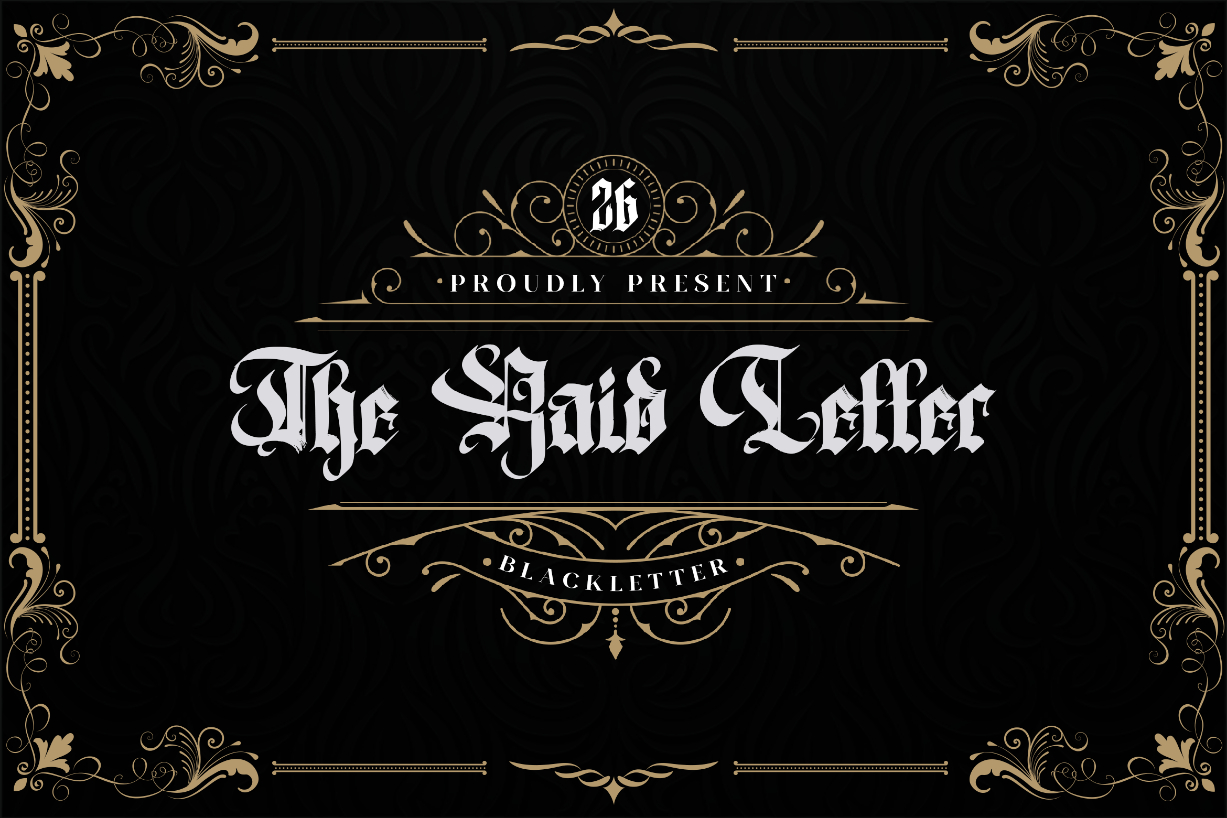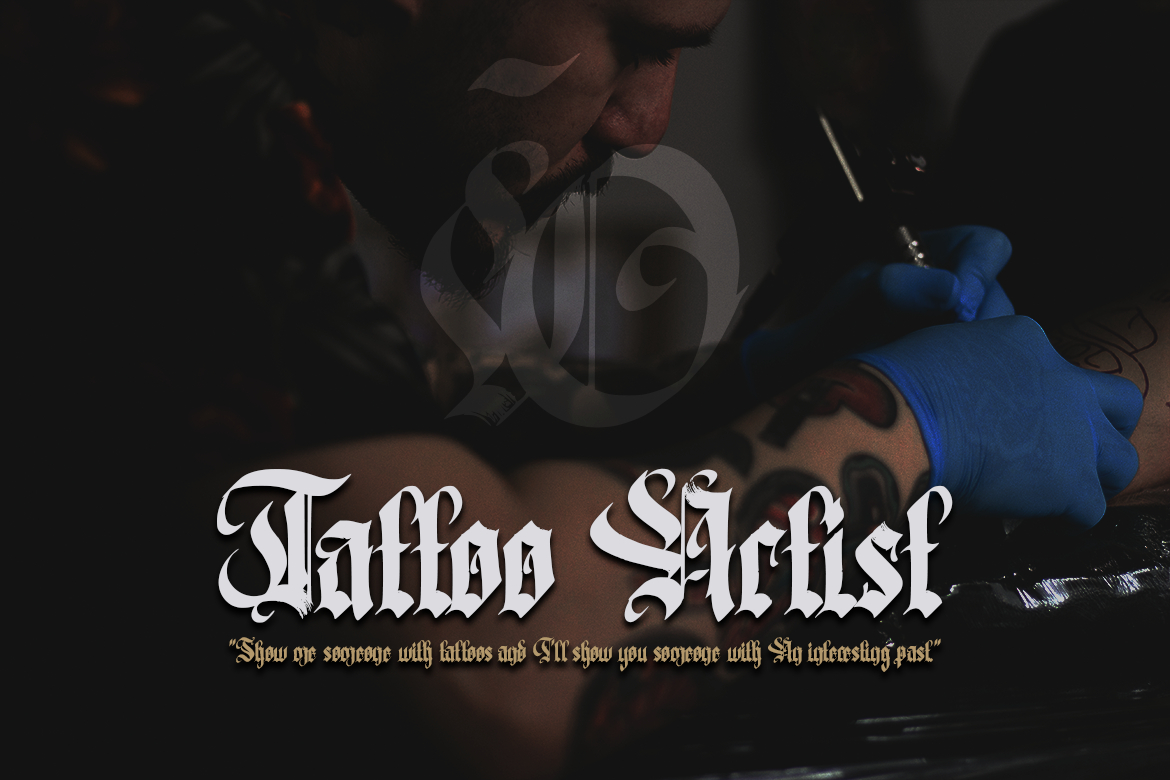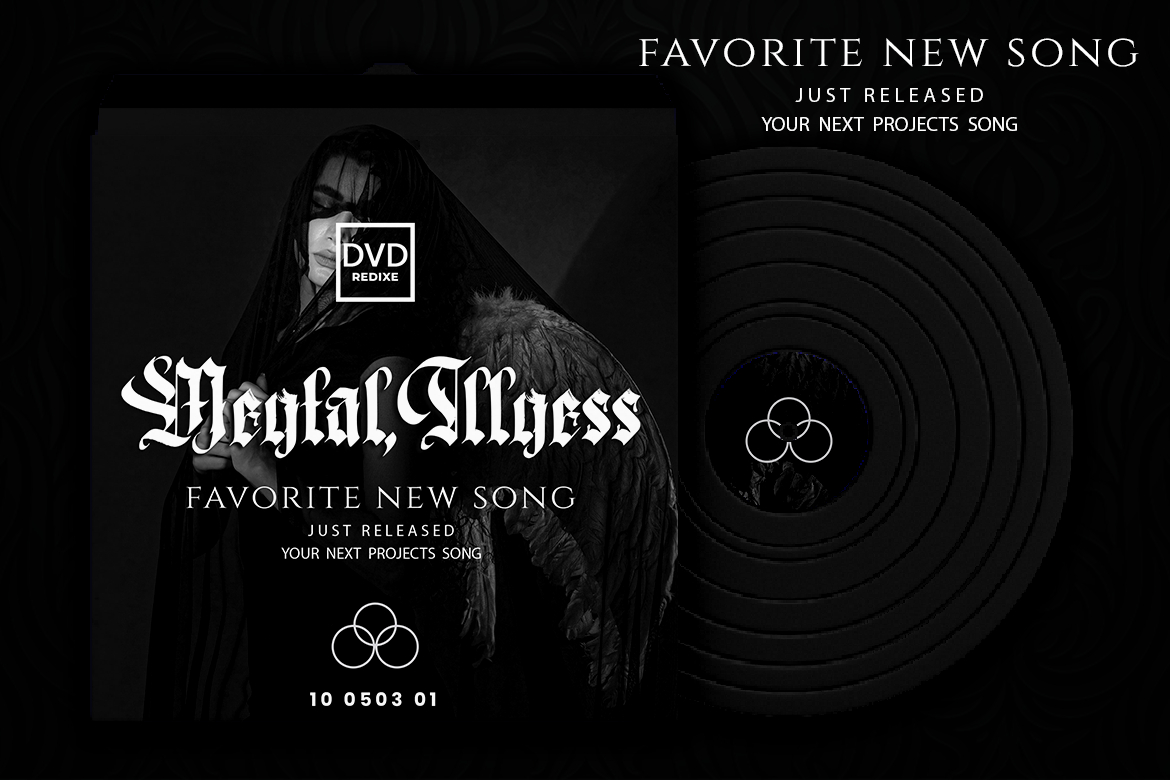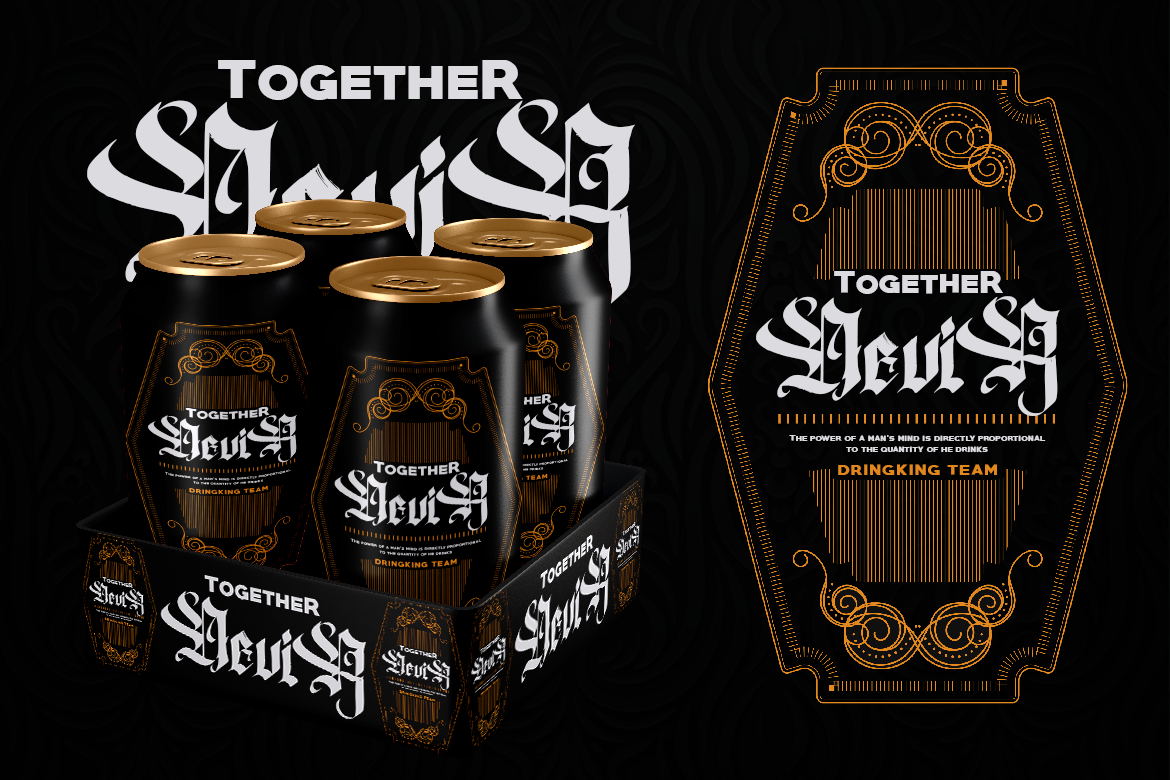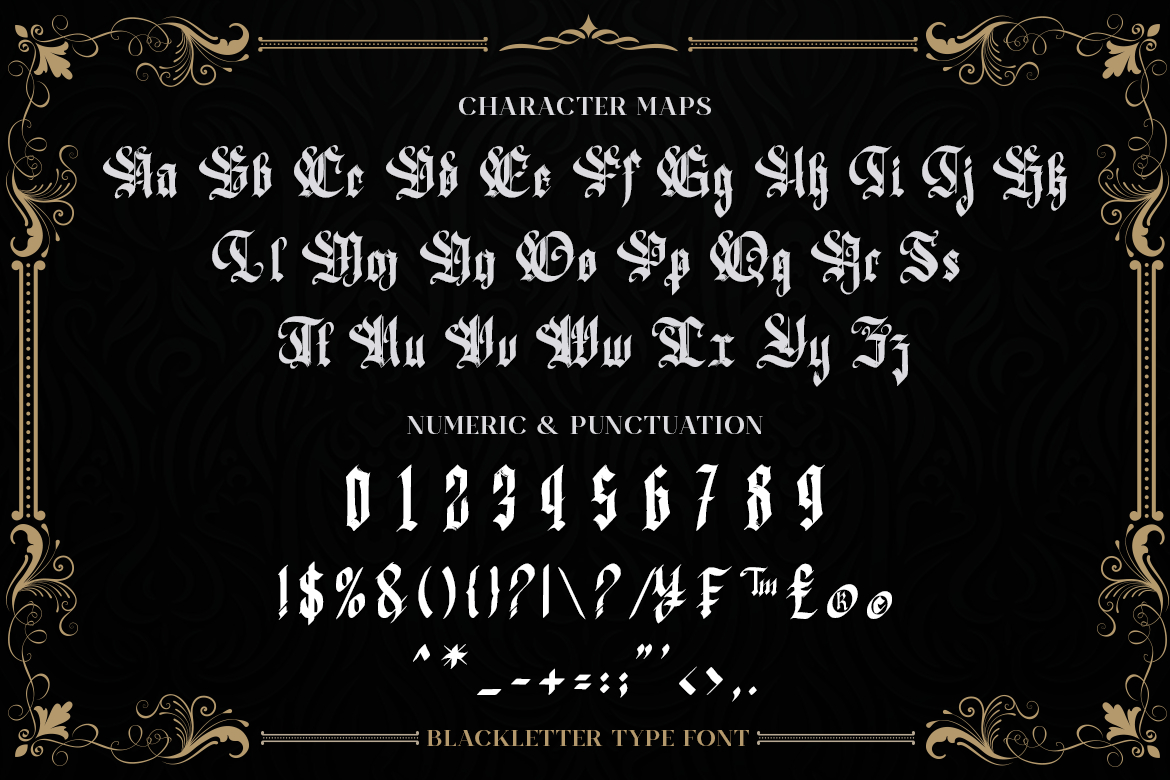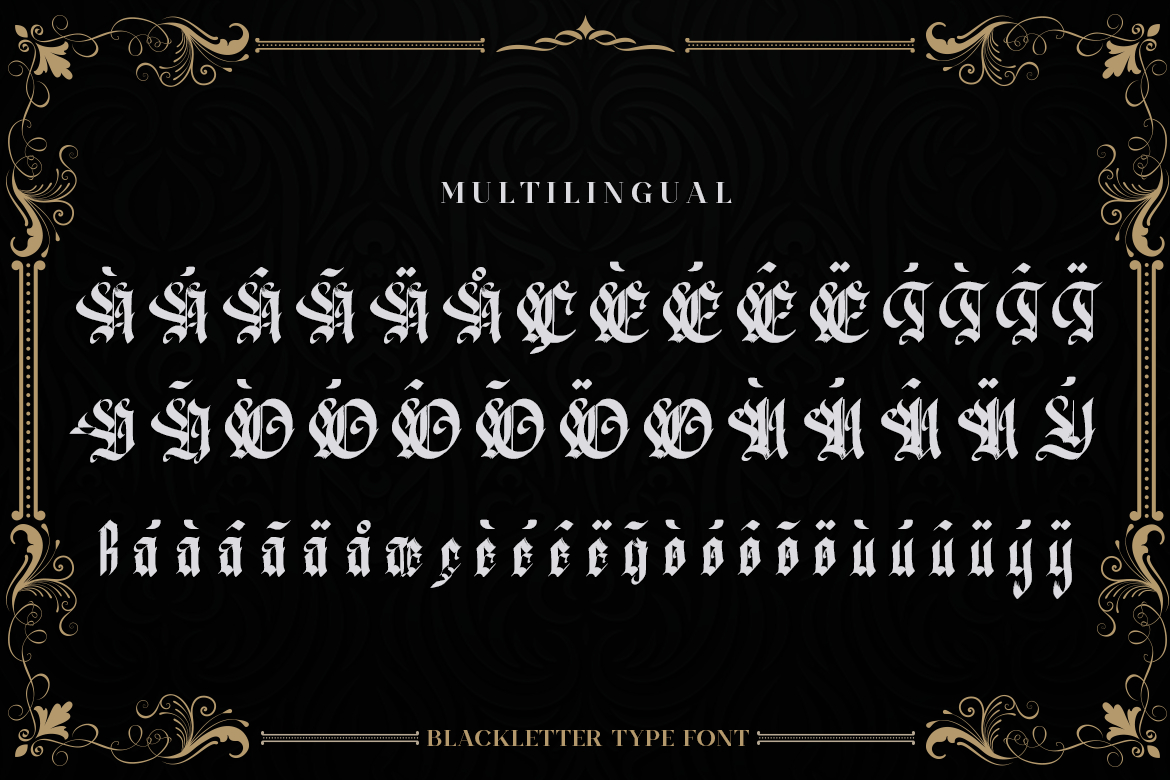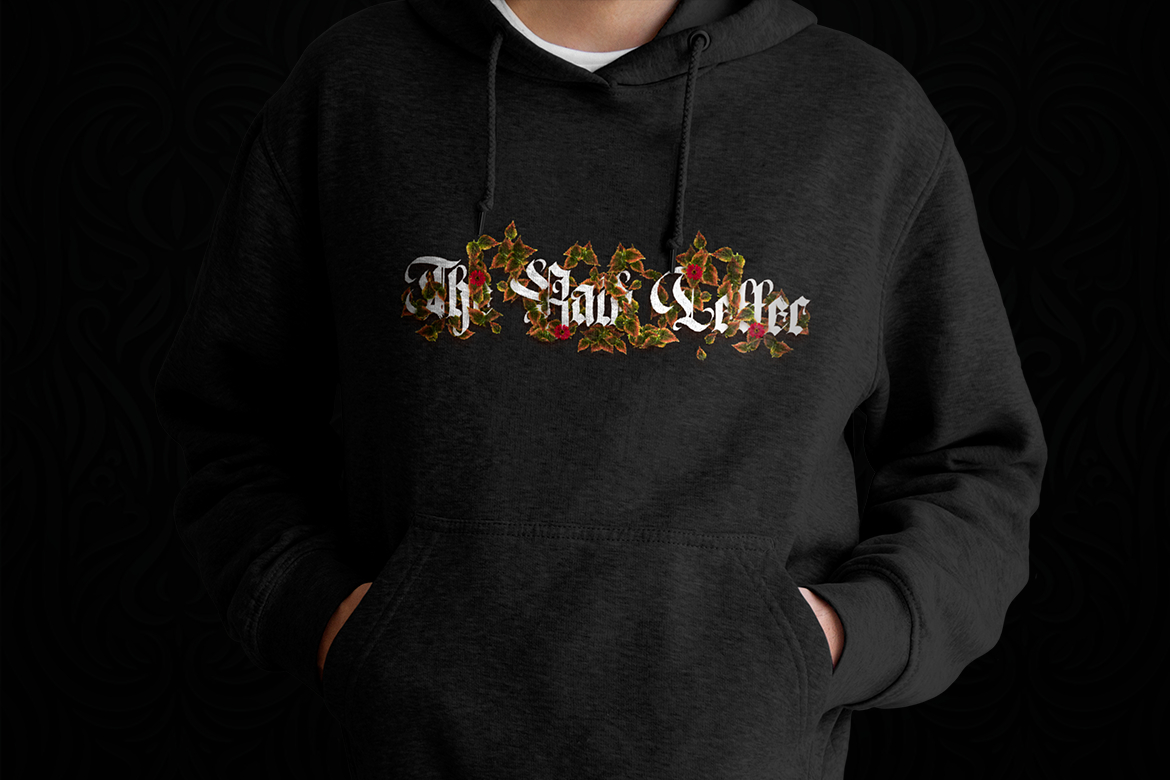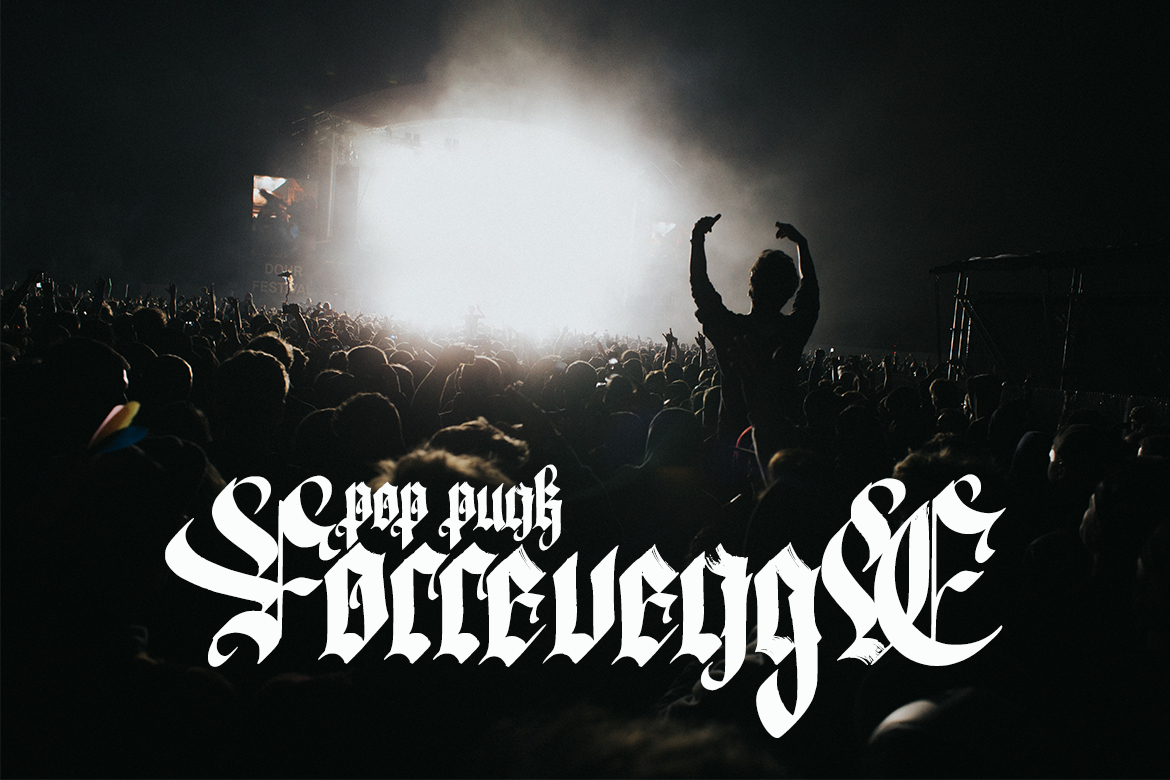
The Raid Letter Font
About The Raid Letter Font
The Raid Letter is an elegant and classic blackletter font that will impress with its stylish features. Use it for product packaging, branding, or other projects that need bold and daring typography!